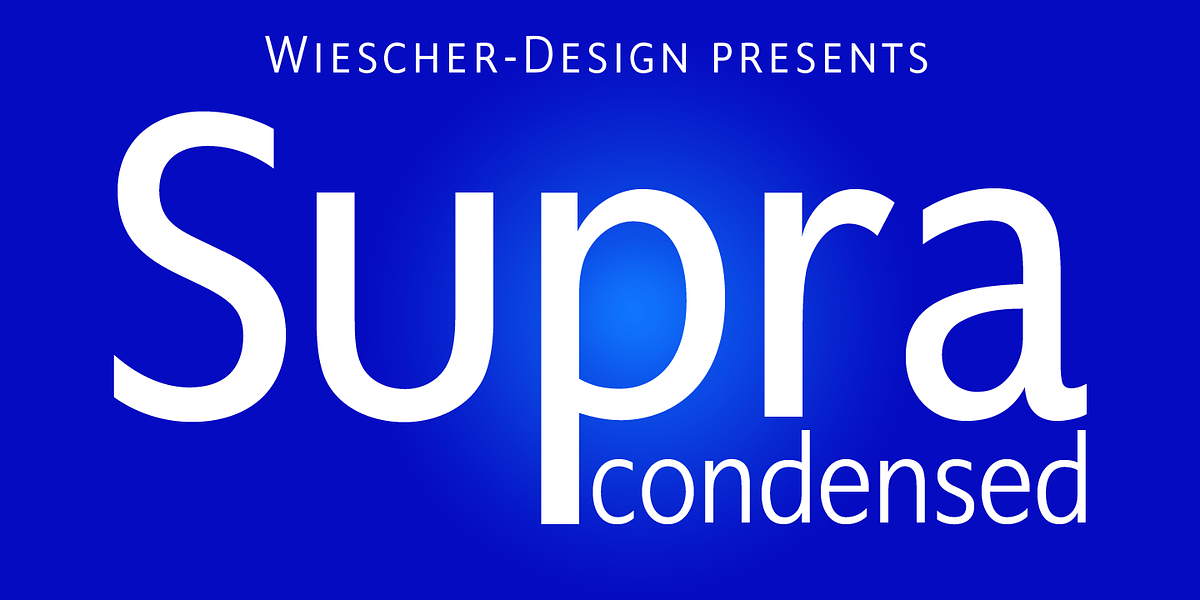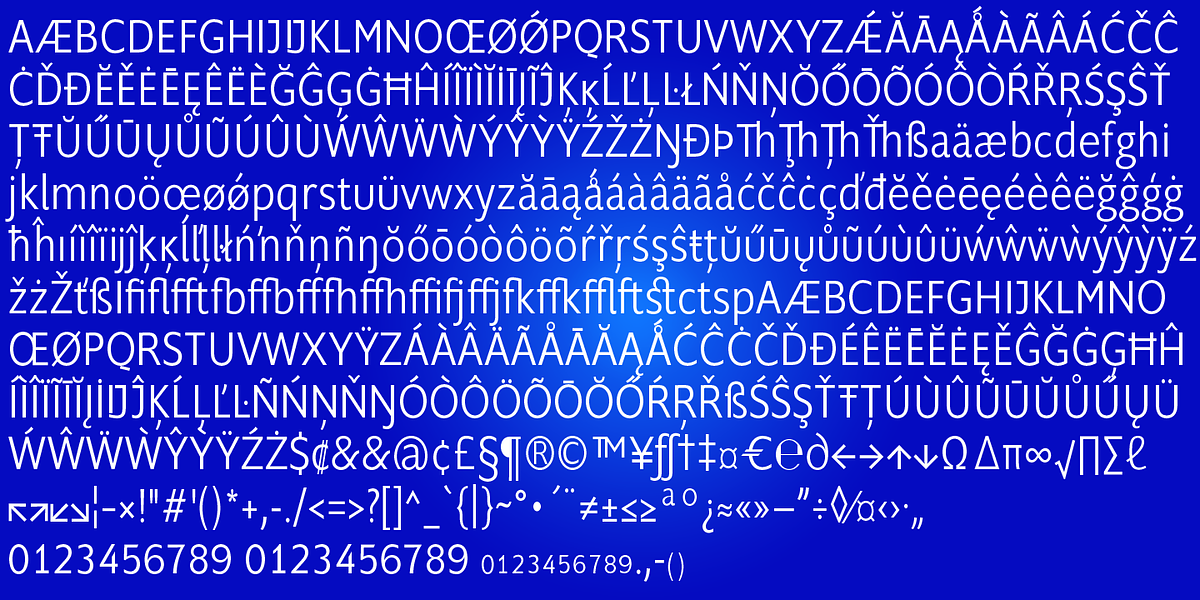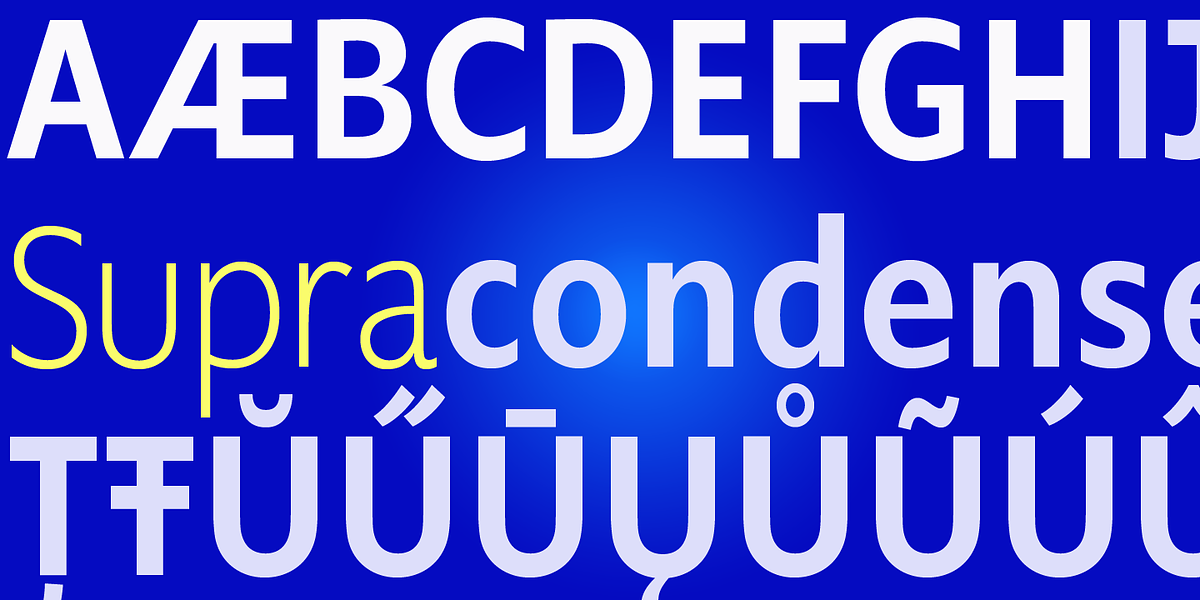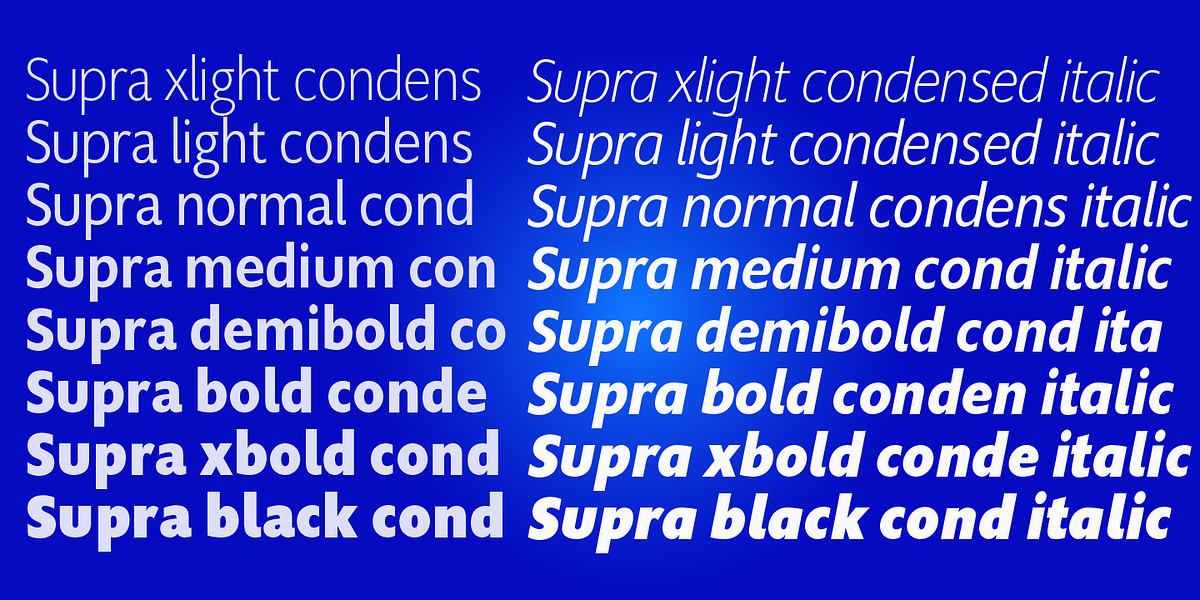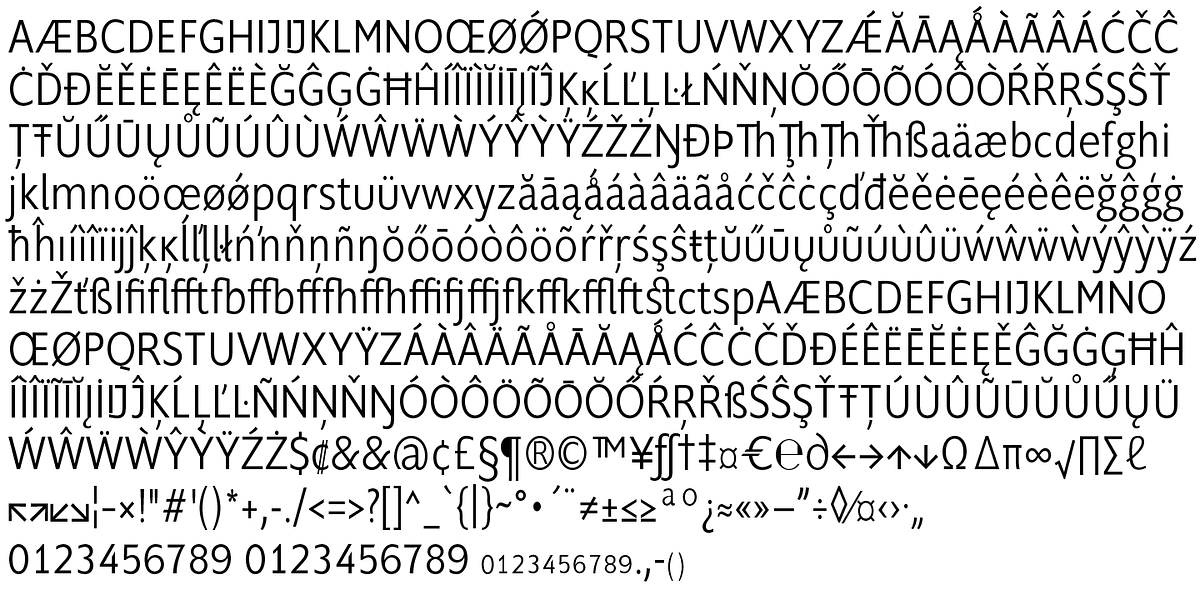
Supra Condensed
Supra-condensed is a condensed sans serif typeface designed for both space-saving and legibility. It comes in eight weights with matching italics, making it suitable for a variety of uses. The lighter weights are ideal for extended body text due to the dominant x-height and high ascenders. Heavier weights offer an elegant option for headlines. Supra is an OpenType family that supports a wide range of languages and includes features like ligatures, different figures, fractions, currency symbols, and small caps.